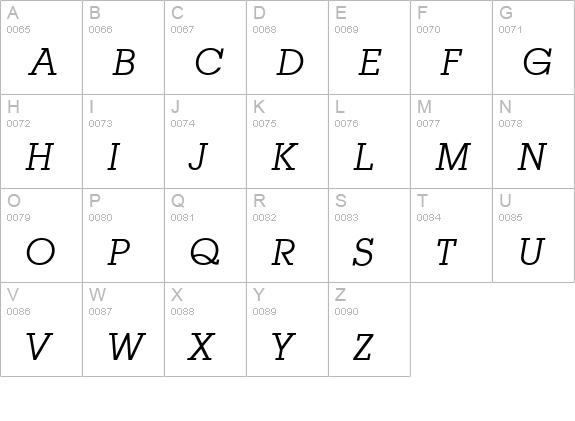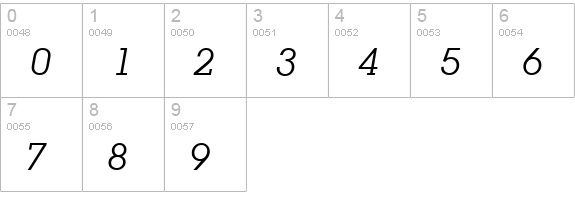
SquareSerif-Italic Font Details
SquareSerif-Italic is a distinctive, italic variant in the SquareSerif typeface family \xE2\x80\x94 well suited to design and typography projects.
SquareSerif-Italic is a versatile and modern font that exudes sophistication and elegance. Its distinctive square serifs add a unique touch to any design, making it stand out from the crowd. The italic style of this font gives it a dynamic and stylish look, perfect for adding a touch of flair to your projects. What makes SquareSerif-Italic even more appealing is that it is available for free download at FontsMarket.com. This means that you can easily access this beautiful font without having to worry about any costs. Whether you're working on a personal project or a professional design, SquareSerif-Italic is sure to elevate your work and leave a lasting impression. Don't miss out on the opportunity to enhance your designs with this stunning font - download it for free today!